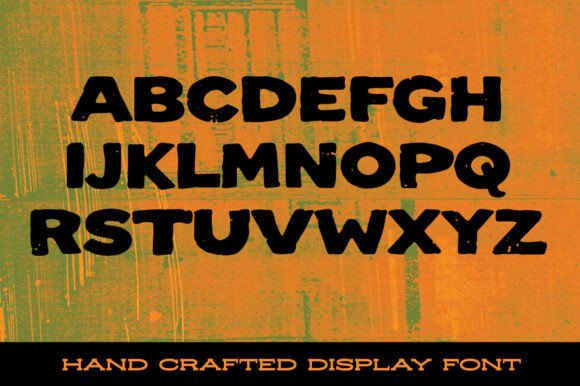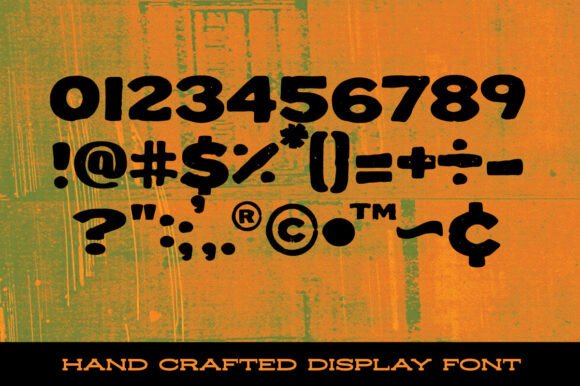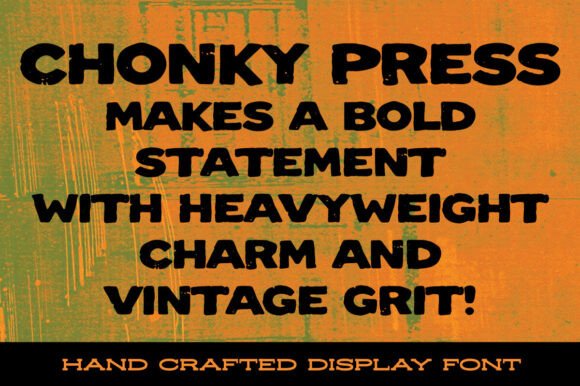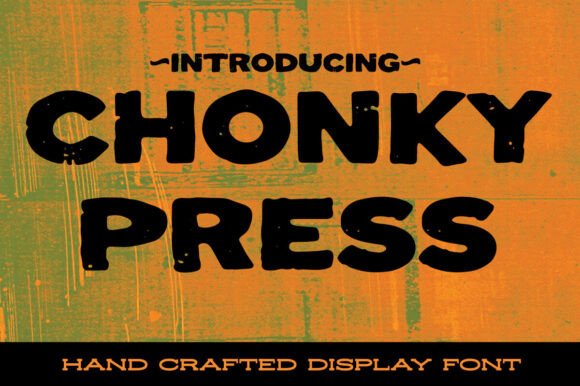
The Unmistakable Charm of Chonky Press Font
I’ll never forget the design project that led me to discover Chonky Press Font. I was working on a vintage-inspired poster for a local craft fair, and I needed a font that would capture the essence of handmade goods and rustic charm. After hours of scrolling through font libraries, I stumbled upon Chonky Press – and it was love at first sight! 💕
This bold, no-nonsense sans serif font has a hefty dose of vintage grit that instantly elevated my design. Inspired by the raw power of old letterpress prints and worn-out signage, Chonky Press brings thick, weighty letterforms with just the right amount of distress. Its chiseled edges and rugged texture give it a handcrafted feel, perfect for designs that demand impact with a touch of nostalgia.
An Honest Review of Chonky Press Font
- 💥 Impactful and attention-grabbing: Chonky Press is perfect for creating eye-catching posters, bold branding, and vintage-inspired packaging.
- 🖌️ Versatile and highly customizable: With OpenType features, glyphs, and stylistic alternates, you can experiment with different styles to fit your design needs.
- 👍 Easy to read: Despite its bold and distressed look, Chonky Press remains surprisingly legible, even at smaller font sizes.
- 💕 Unique and authentic vibe: The font’s rugged texture and chiseled edges give it a one-of-a-kind personality that’s hard to replicate with other fonts.
While Chonky Press is an amazing font, it’s not without its quirks. Here are a few things to keep in mind:
- 🤔 Overuse can be overwhelming: Due to its bold and distressed nature, Chonky Press can be overwhelming if overused. Balance it with simpler fonts for optimal impact.
- ⚠️ Limited suitability for body text: While legible, Chonky Press is best suited for headlines and titles. Its boldness can make body text difficult to read.
The Backstory of Chonky Press Font
Chonky Press was designed with the intention of capturing the raw power and grit of old letterpress prints and worn-out signage. Its creator aimed to craft a font that would bring a touch of nostalgia and handmade charm to modern designs. By combining bold, weighty letterforms with a rugged texture, Chonky Press delivers big personality in every letter.
Q: What makes Chonky Press Font unique?
A: Chonky Press Font is unique due to its bold, distressed look and rugged texture, giving it a handcrafted feel that’s perfect for vintage-inspired designs.
Q: Is Chonky Press suitable for body text?
A: While Chonky Press is legible, it’s best suited for headlines and titles. Its boldness can make body text difficult to read.